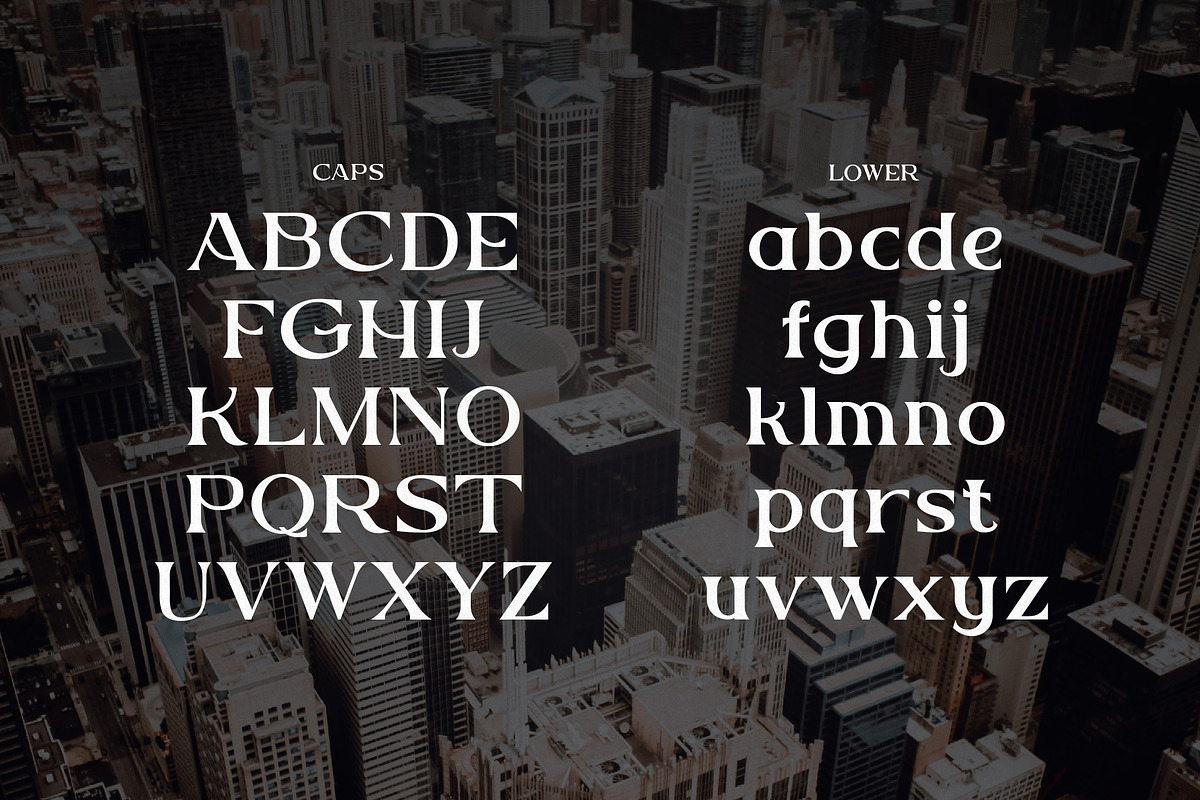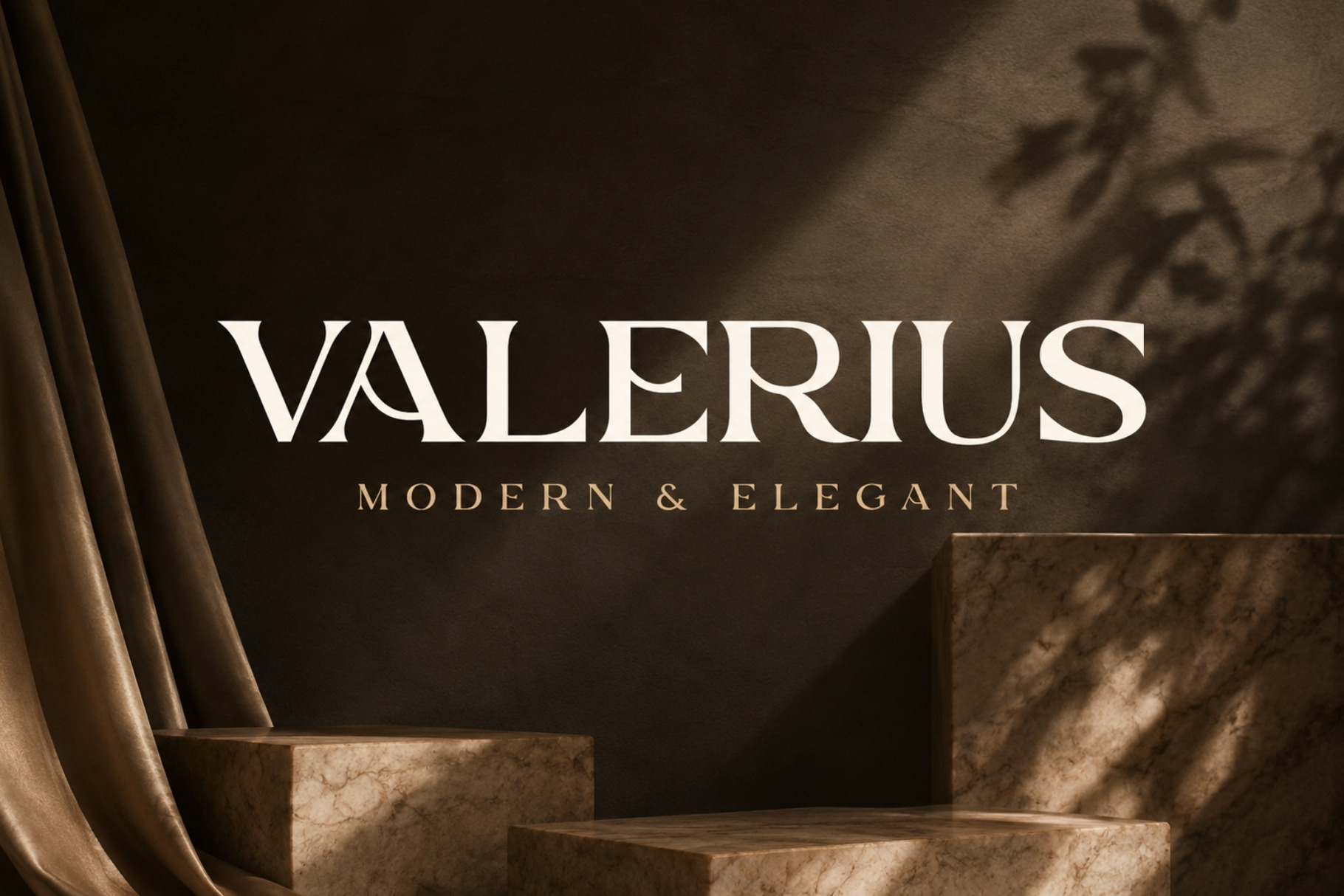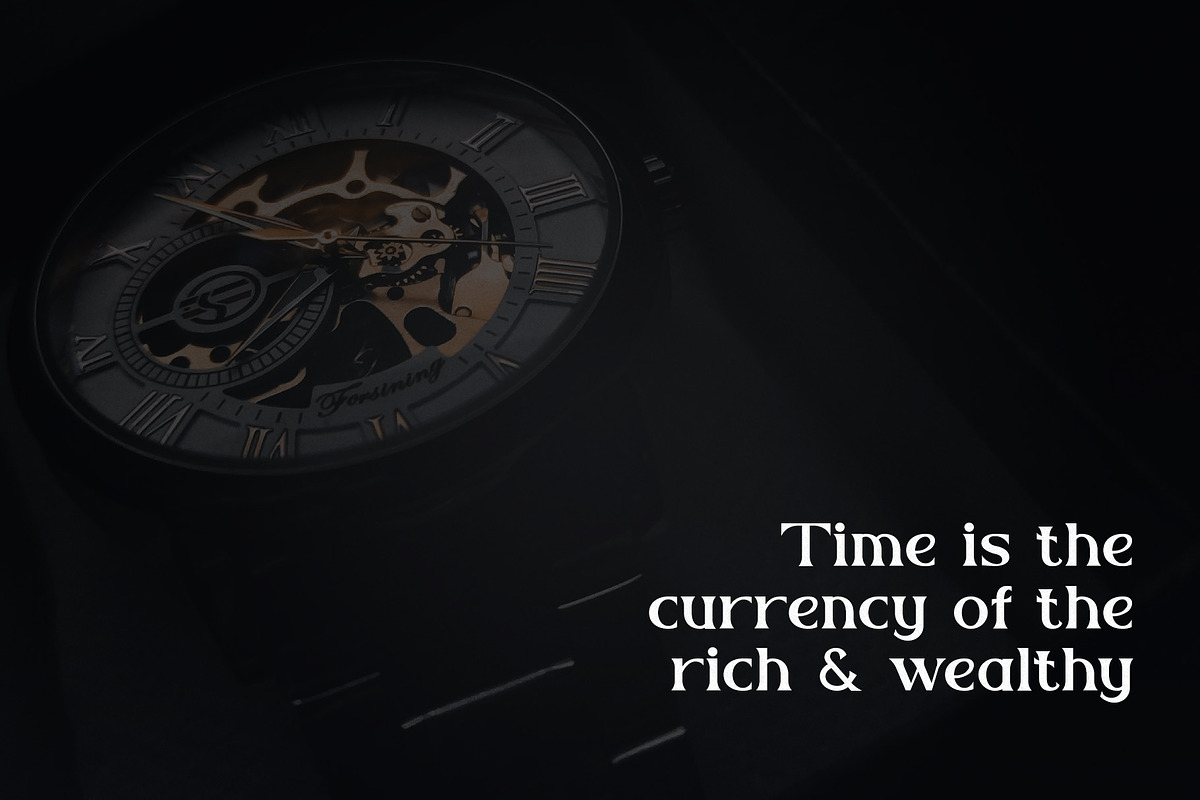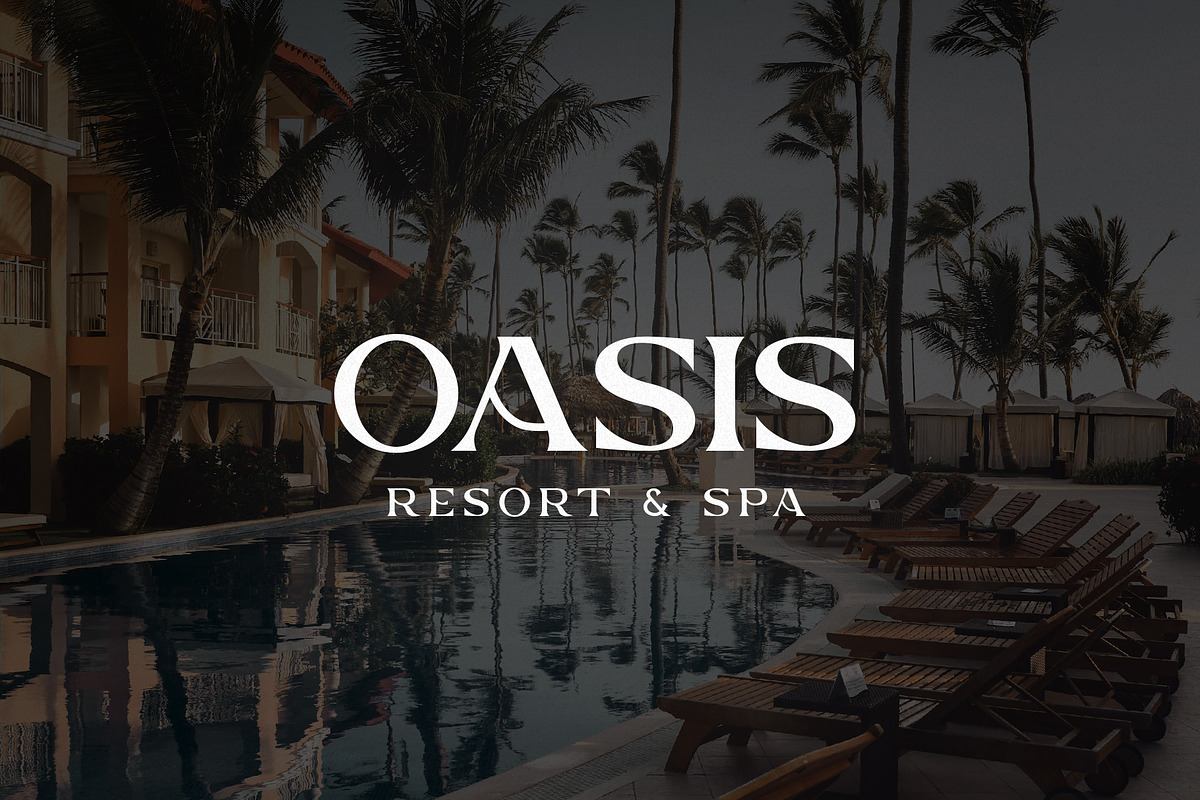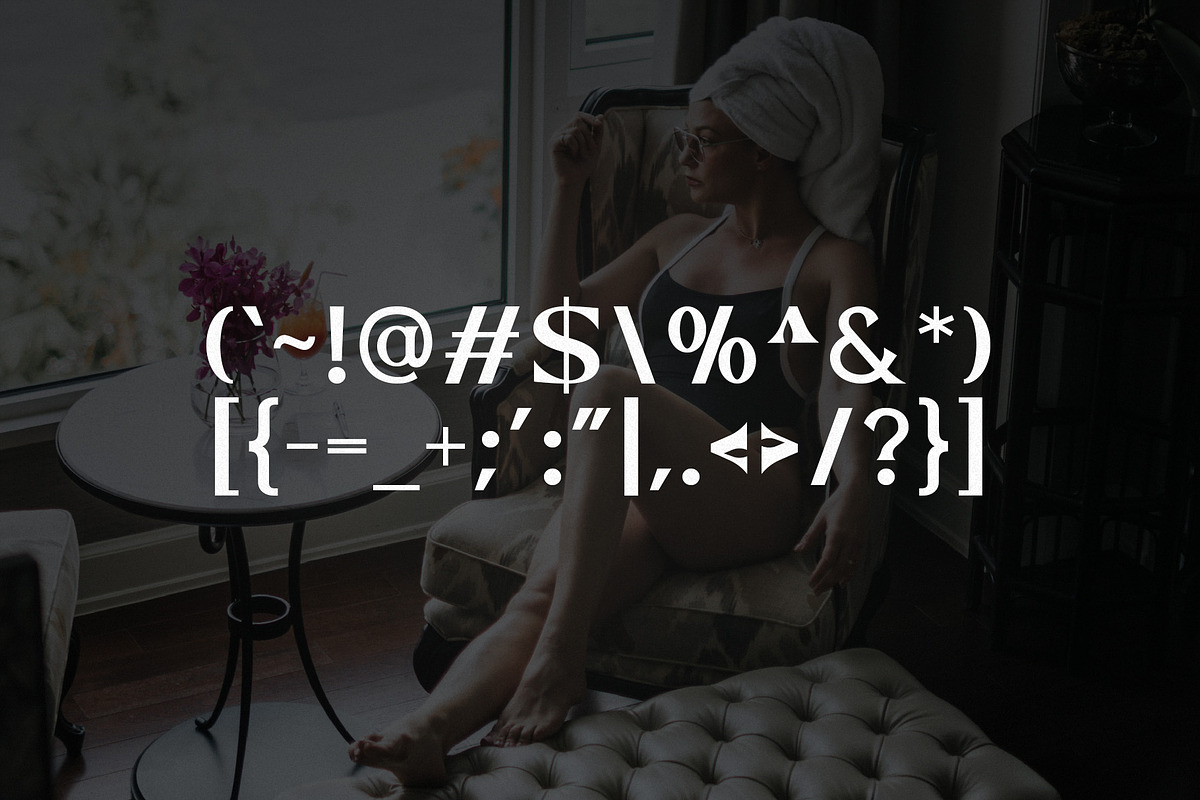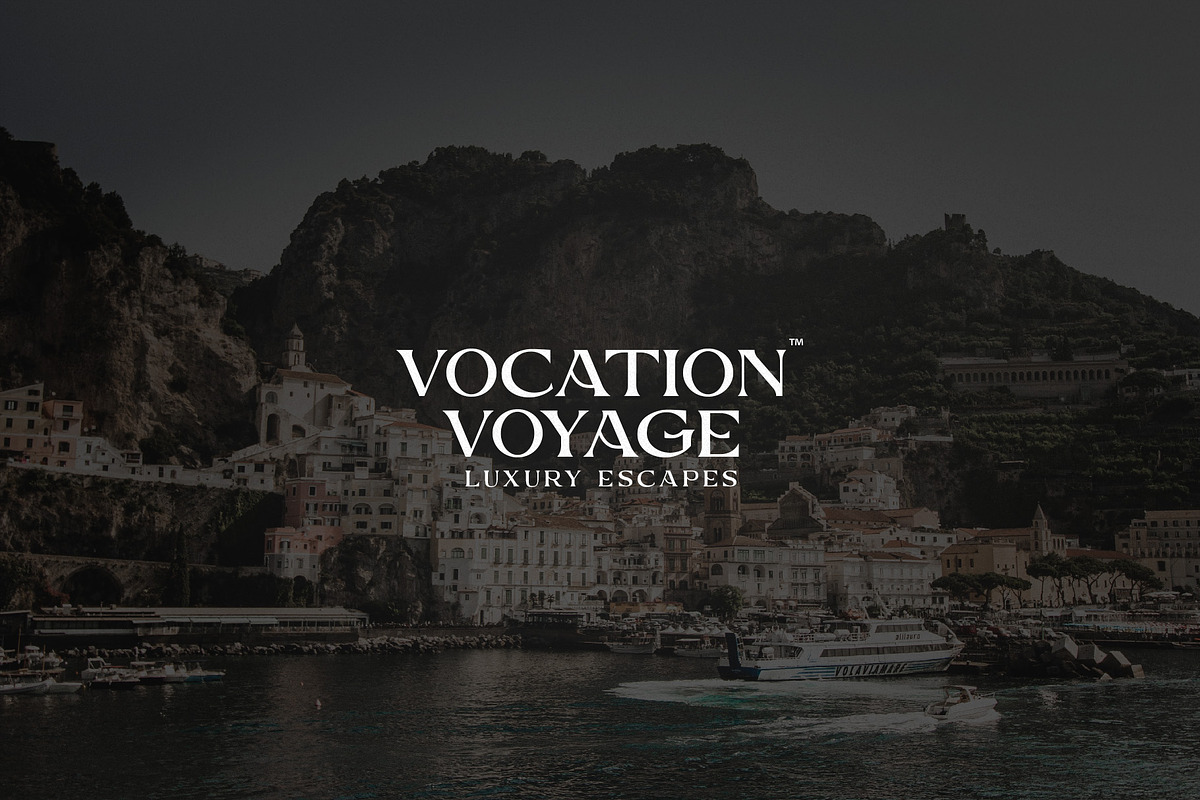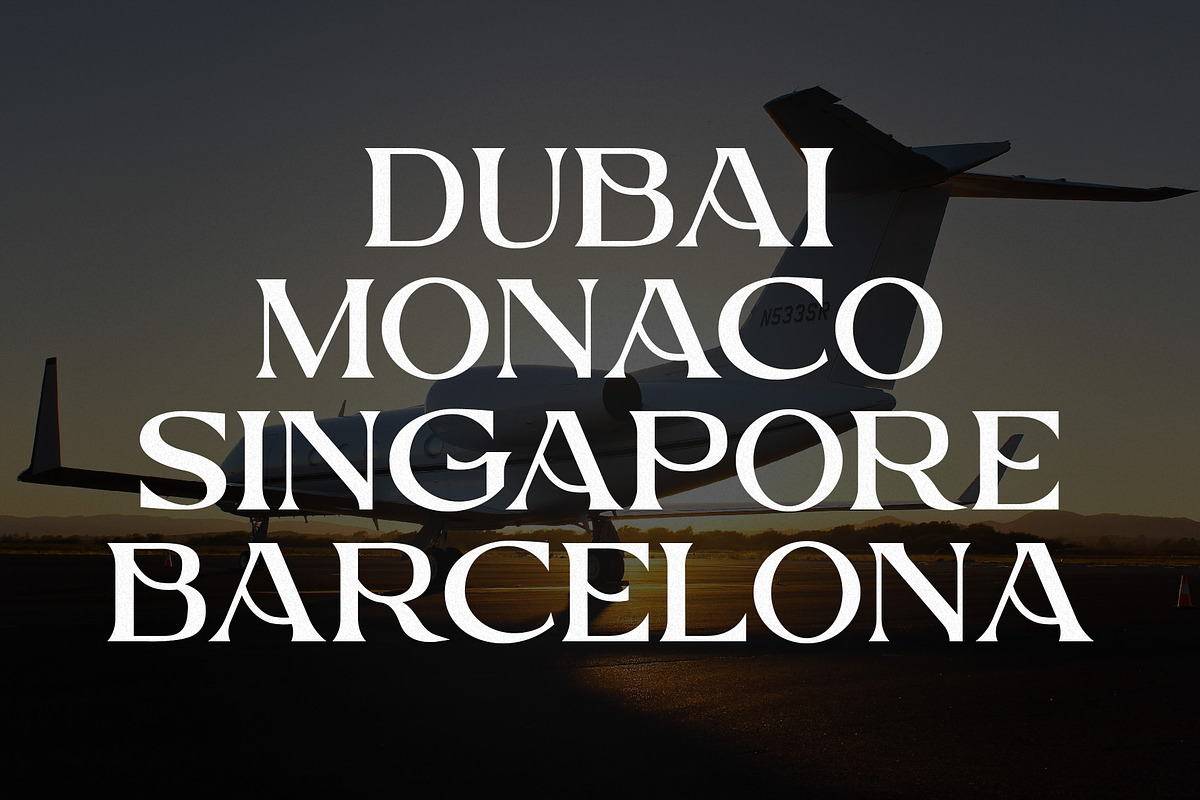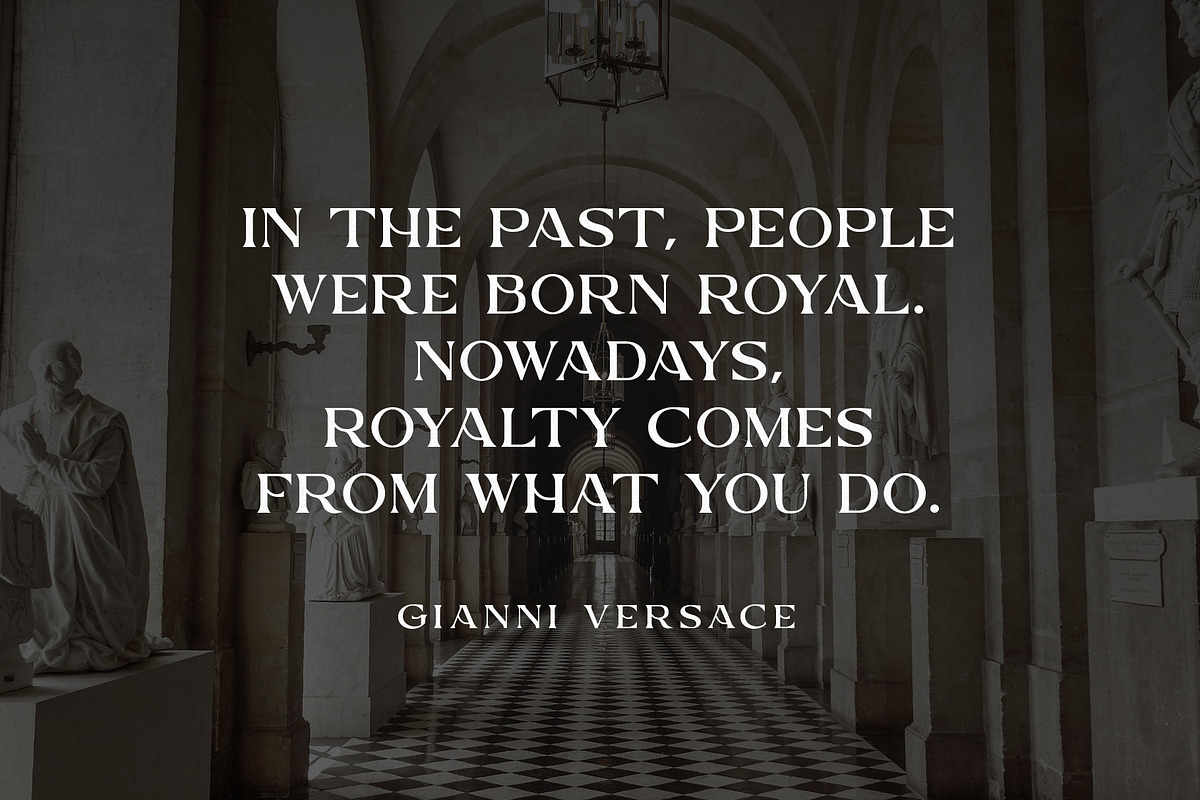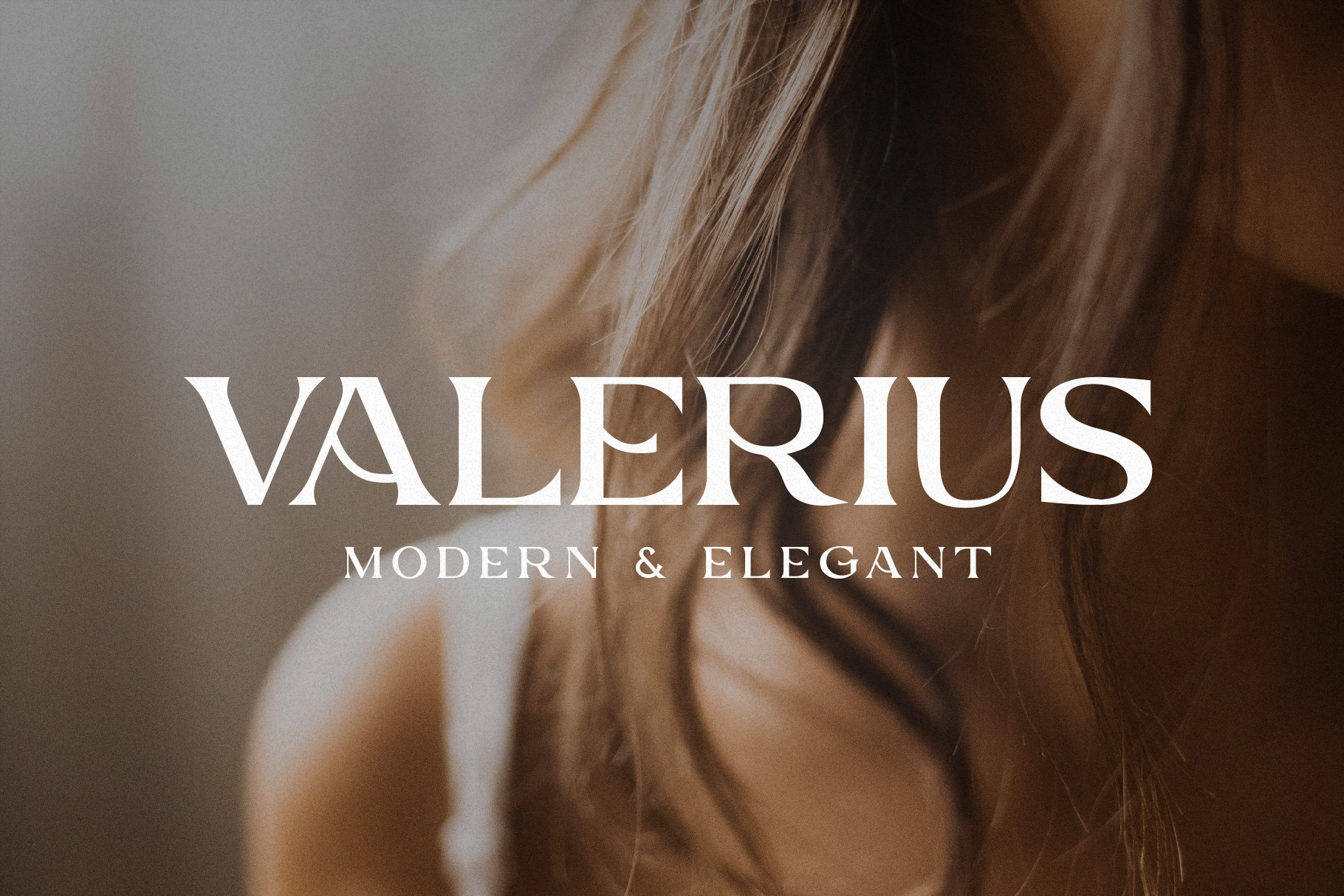
Valerius - Elegant Typeface
Valerius is a serif typeface inspired by luxury hotels, fashion brands, and magazines. This typeface screams elegance/royalty, perfect for branding, packaging, print, editorials, badges and much more. Valerius includes uppercase letters, lowercase letters, numerals, and all the special character you would expect.